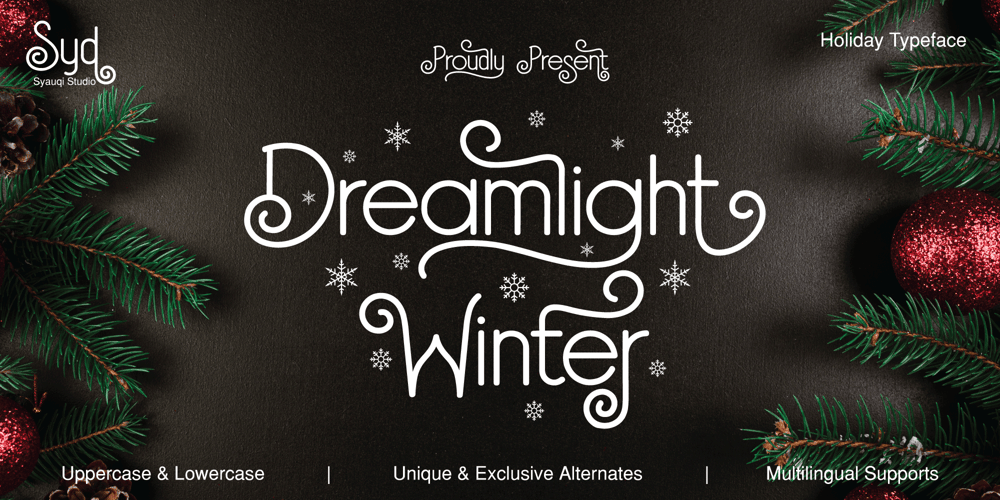
Dreamlight Winter
Dreamlight Winter font
Dreamlight Winter Font Family was designed by Muhammad Asroful Umam and published by Syauqi Studio. Dreamlight Winter contains 1 styles and family package options. Dreamlight Winter is an elegant and versatile font designed to capture the essence of the winter season. Inspired by the peaceful beauty of snowy landscapes and the warmth of festive celebrations, this font is perfect for any design that evokes the magic of Christmas and the chill of winter.With its graceful curves and delicate strokes, Dreamlight Winter brings a unique charm to holiday projects, greeting cards, invitations, and more. The font features a wide range of alternates, providing you with an extensive selection of letterforms that allow for creative flexibility and customization, making each design uniquely yours.Whether you’re creating cozy seasonal branding, festive marketing materials, or personalized invitations, Dreamlight Winter adds a touch of elegance and warmth to every project. Its versatility ensures it will shine in both modern and classic designs, and its charming alternates help elevate your typography with ease.Features:- Uppercase & Lowercase- Number & Punctuation- Alternates & Swashes- Multilingual SupportThank you, Best regardsSyauqi Studio